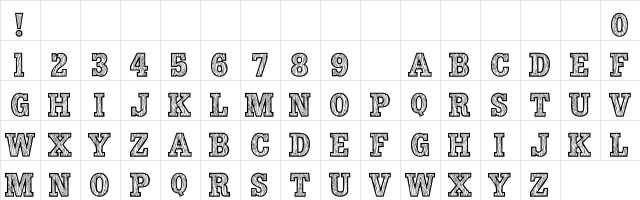
101! Wooden Alpha BlockZ Regular
Design Context for 101! Wooden Alpha BlockZ Typeface
101! Wooden Alpha BlockZ echoes the hand-painted signage and woodblock typography of the American frontier, with a warm, rugged personality.
Perfect for barbecue restaurants, country music branding, vintage poster design, and rustic packaging.
Font Pairing: Combine 101! Wooden Alpha BlockZ with a simple slab or neutral sans — period-accurate companions reinforce the vintage feel without competing for attention.
Pro Tip: Pair 101! Wooden Alpha BlockZ with aged textures or distressed backgrounds to amplify its vintage personality.